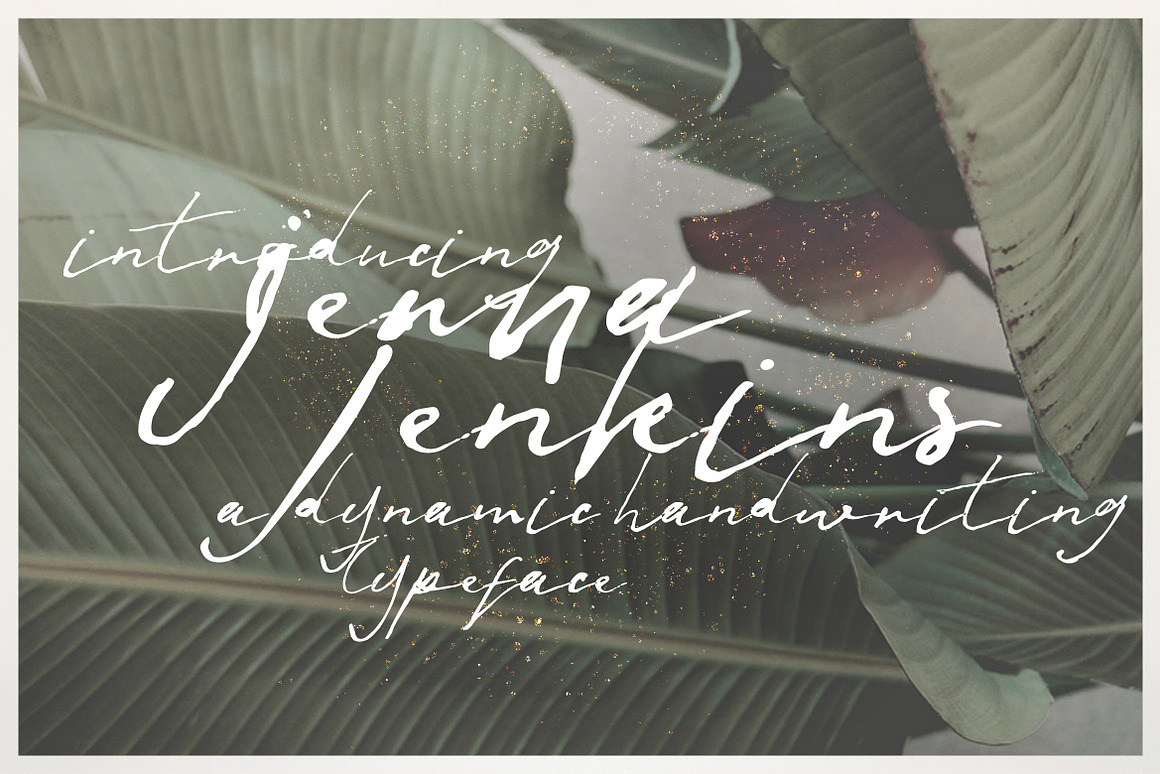
Jenna Jenkins Script Font
Jenna Jenkins Script Font is perfect for handmade craft branding, artisan bakery signage, boutique coffee shop menus, personal blog headers, creative workshop materials, custom stationery designs, heartfelt greeting cards, small business logos, intimate event invitations, and authentic lifestyle brands. This charming script typeface excels in applications where personal touch, genuine warmth, and handcrafted authenticity are essential design elements.
Jenna Jenkins Script Font is exciting because it captures the spontaneous beauty and personal charm of genuine handwriting through its naturally flowing letterforms and authentic character variations. Its organic curves, casual baseline positioning, and imperfect connections create a sense of human warmth and personal intimacy that digital typography often lacks. The font's approachable personality delivers genuine authenticity while maintaining professional readability across various applications from social media graphics to printed materials.
The Jenna Jenkins Script Font family includes Regular, Bold, and Light weights, plus an extensive collection of contextual alternates, swashes, and decorative elements that enhance the handwritten authenticity. The family features over 100 stylistic alternates, natural ligatures, and beginning and ending swashes that automatically create varied letter combinations. Multiple language support ensures versatility for international small businesses and personal branding applications.
Professional designers appreciate Jenna Jenkins Script Font for its ability to convey authenticity, personal connection, and human warmth in an increasingly digital world. The font's friendly personality works beautifully in small business applications where personal relationships and genuine service are paramount. Its versatile nature makes it suitable for both casual social media content and professional branding materials for artisan businesses.
The heartfelt character of Jenna Jenkins Script Font transforms brand communications with its genuine warmth and personal authenticity. Its handcrafted appearance speaks to audiences seeking real human connections and authentic experiences while maintaining the professional quality required for successful business communications.